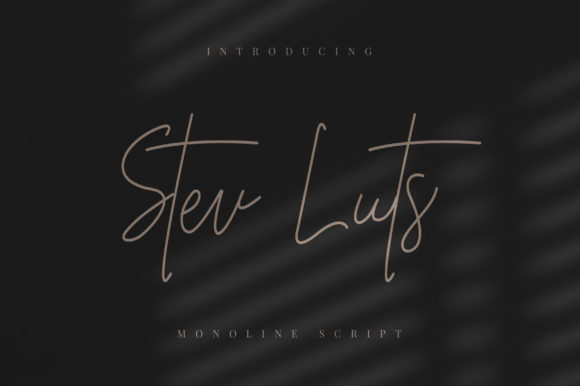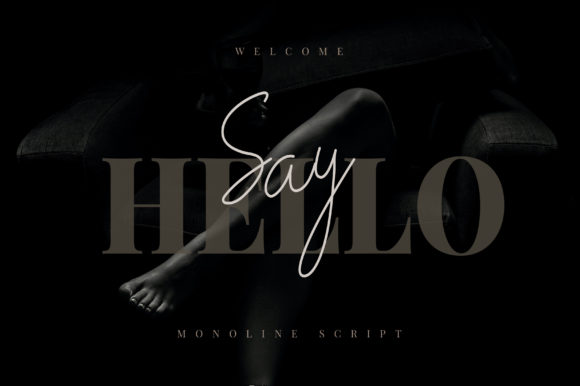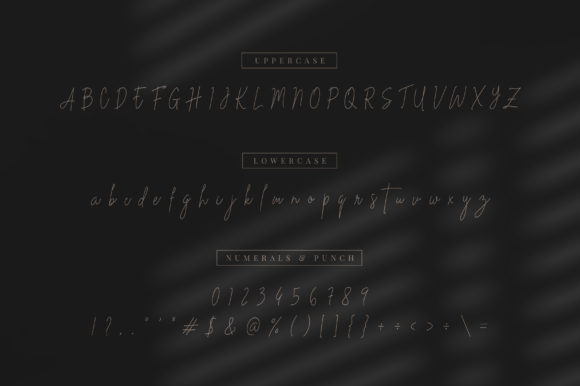
Stev Luts Font
About Stev Luts Font
Stev Luts is a flowing handwritten font, described by an elegant touch, perfect for your favorite projects. Fall in love with its incredibly distinct and timeless style and use it to create spectacular designs!